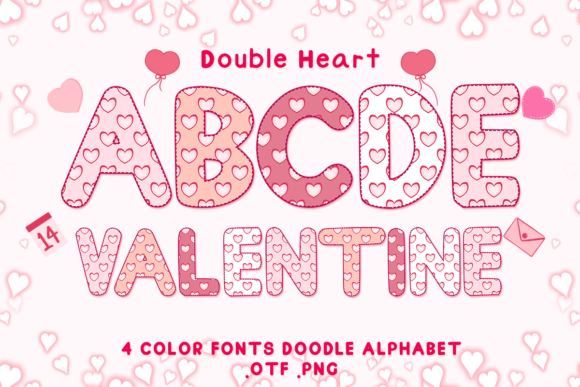
Double Heart: A Creative Font for Valentine's Day and Beyond
When you find a typeface that feels like it was designed with genuine affection, it changes how you approach a project. Double Heart is exactly that kind of discovery—a color font that brings warmth, personality, and a distinct visual charm to your work. It’s not just another decorative option; it’s a design asset that carries an intended feeling of joy and creativity right into your layouts.
This isn't about theoretical typography. It's about a practical tool that can elevate your designs from ordinary to memorable. Whether you're crafting a heartfelt Valentine's campaign, building a brand identity for a boutique bakery, or designing social media graphics that need to stop the scroll, Double Heart offers a unique solution. Its visual style is playful yet refined, blending the approachability of a script font with the crisp, modern clarity of a color font. The integrated color adds a layer of depth and immediacy that traditional monochrome fonts simply can't achieve.
Where This Adorable Font Truly Shines
Understanding where a font works best is key to using it effectively. Double Heart’s strength lies in applications where emotion, personality, and visual impact are priorities. Think beyond the obvious Valentine's Day card. This is a versatile creative font suited for a range of projects.
Assessing Project Fit and Readability
First, consider the project's primary message. Does it call for warmth, celebration, or elegance? Double Heart excels in these areas. However, like any display font, its readability diminishes with long blocks of text. It’s designed for headlines, short phrases, and impactful words. For body copy, pair it with a clean, simple sans serif font or a neutral serif font to maintain legibility and create a clear visual hierarchy.
Testing Font Pairings and Exploring Styles
The best font pairing creates contrast and harmony. Try combining Double Heart with a geometric sans serif like Montserrat for a modern look, or with a classic serif like Georgia for a more traditional, elegant feel. Test different weights and sizes. The included files offer flexibility, so experiment with what works for your specific layout. Always review the full character set to see what alternates or glyphs are available to enhance your design.
In the end, a font like Double Heart is more than just letters on a page. It’s a design choice that communicates care, creativity, and intention. By selecting it thoughtfully and pairing it wisely, you can leverage its unique charm to connect with your audience on a more human level, making your projects not just seen, but felt.